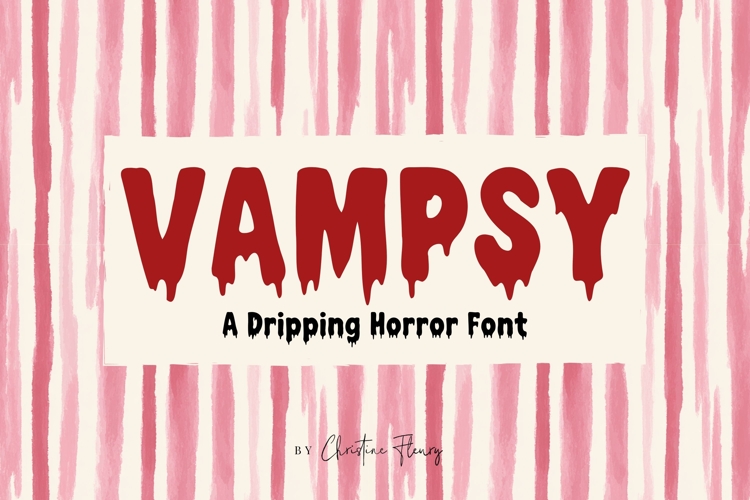
Get ready to get spooky this Halloween Season with Vampsy — a dripping hand-drawn font with a gory horror vibes. ✨ With its blocky type, drip style, and hand drawn flair, Vampsy is perfect for Crafters, Cricut users, Procreate lovers, and anyone looking to add a little horror to their work.
Use it for Sublimation designs, SVGs, Halloween graphics, Witchy stickers, Spellbook pages, Mugs, Logos, Wall Art, and so much more. Whether you're slaying with spooky vibes or crafting true crime quotes, Vampsy oozes the perfect crime scene.